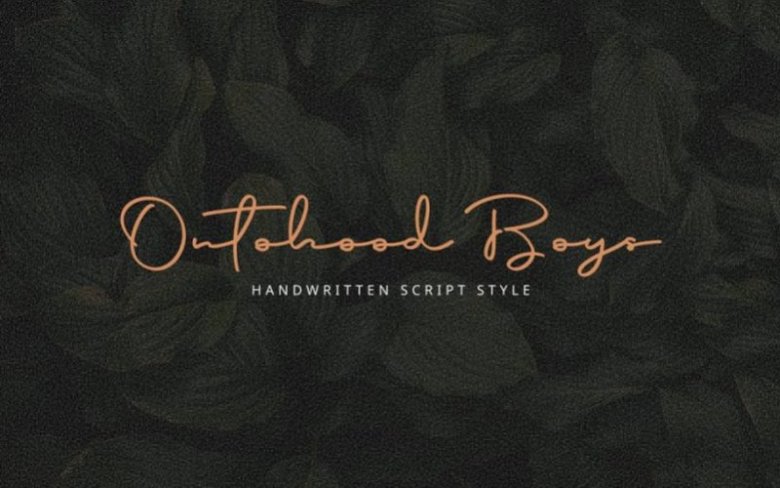
Ontohood Handwritten Font
Welcome to the Idealogo Studio! We produce high-quality, professional fonts that are unique in creativity and help you to get your dream font. “Ontohood Boy” is a font with a continuous handwritten script style. This font is perfect for both professional and branding needs of a product. Also for for print products and wedding invitations. This font helps you find the writing style you need. Coming with a lot of language support, this font is perfect for you. Get it now!